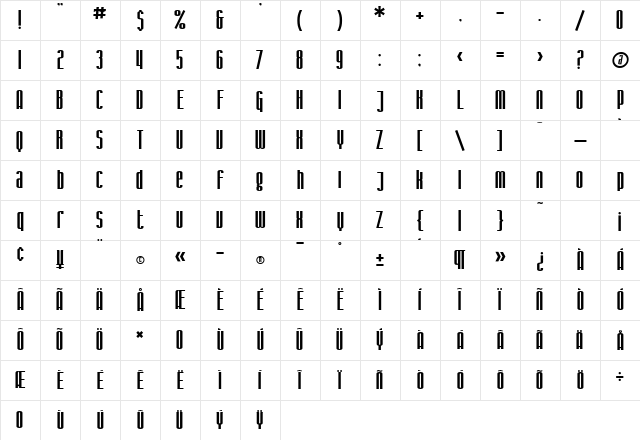
SF Iron Gothic Regular
SF Iron Gothic Family
Complete SF Iron Gothic Regular glyph index. Displaying only characters natively supported by SF Iron Gothic Regular font.
Design Context for SF Iron Gothic
SF Iron Gothic takes a clean, functional approach - its unadorned letterforms prioritise legibility and work reliably across screen and print environments.
Font Pairing: Works well alongside a characterful serif or display font that can carry the expressive load while SF Iron Gothic handles the functional copy.
Pro Tip: Use SF Iron Gothic for UI labels, navigation, and short-form body copy where clean legibility is the priority.